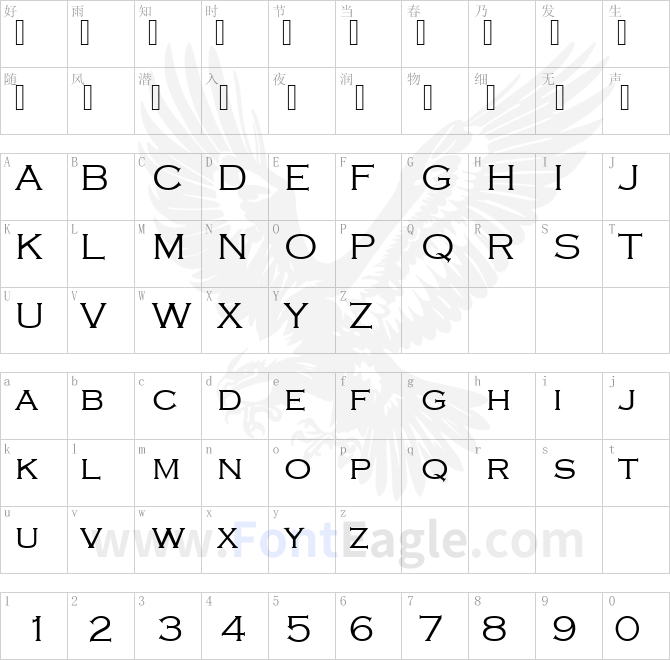
- Font name:Copperplate Gothic Light
- Font Subfamily ID:Copperplate Gothic Light
- Font Full Name:Copperplate Gothic Light
- Font Version:Version 1.50
- Postscript:CopperplateGothic-Light